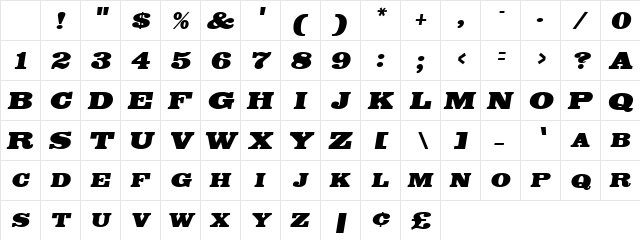
PetitionExpert is a composed and adaptable typeface that performs quietly and consistently across a wide range of design contexts. The slanted form adds forward momentum and visual energy.